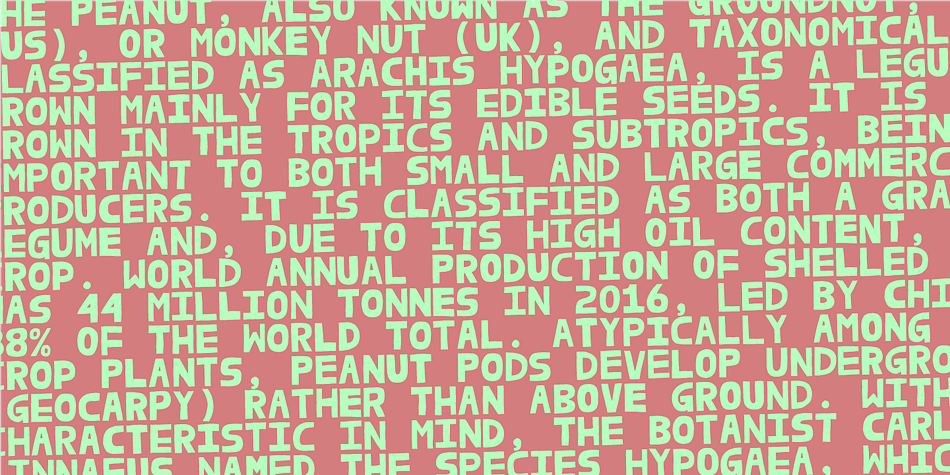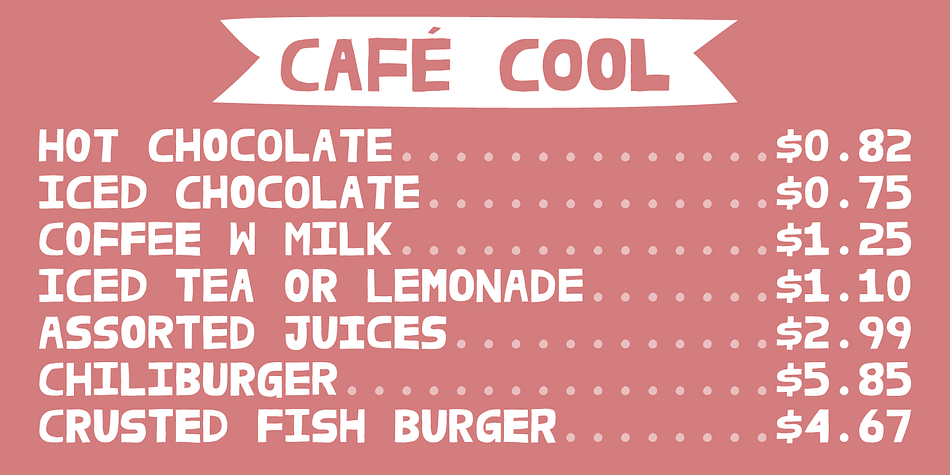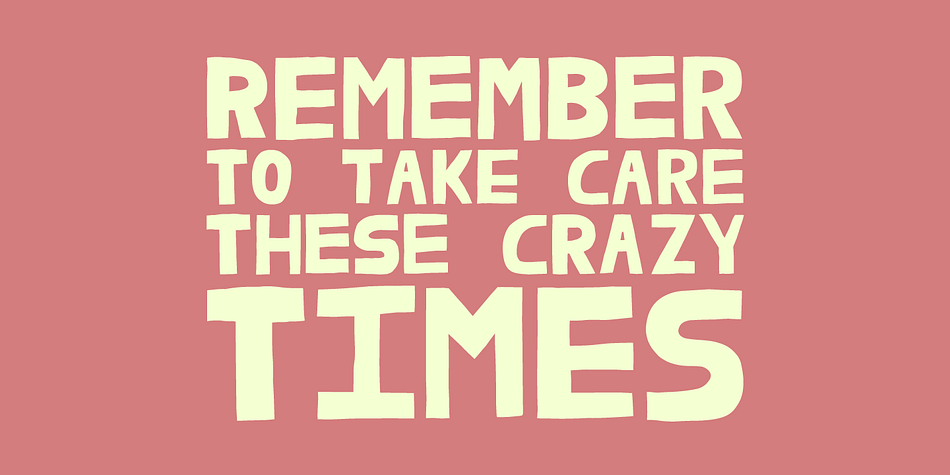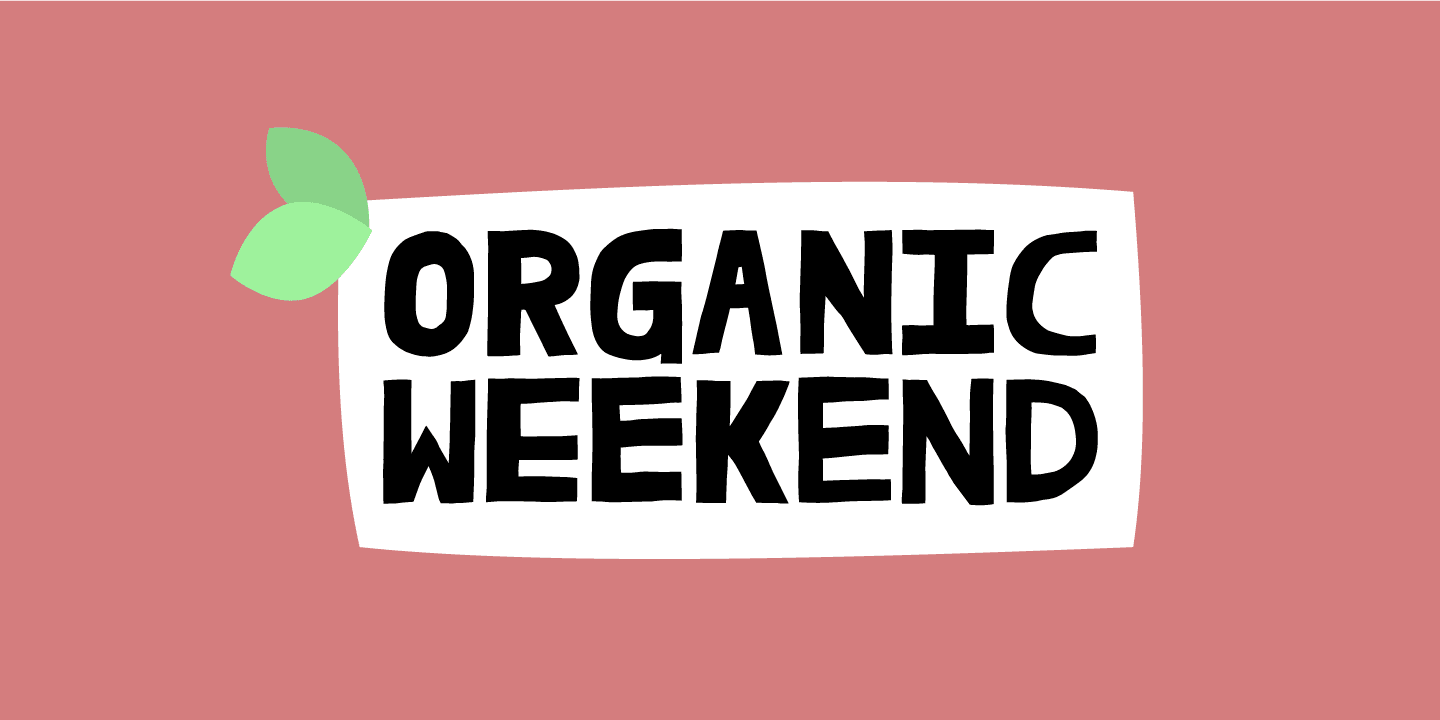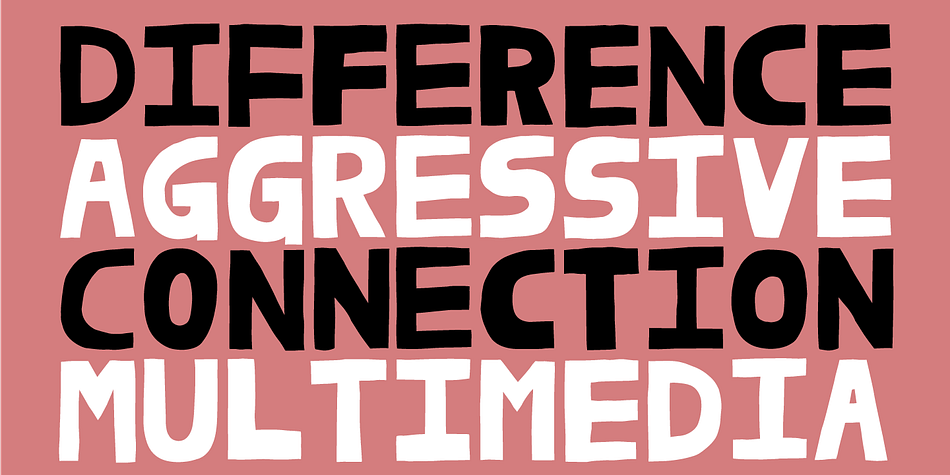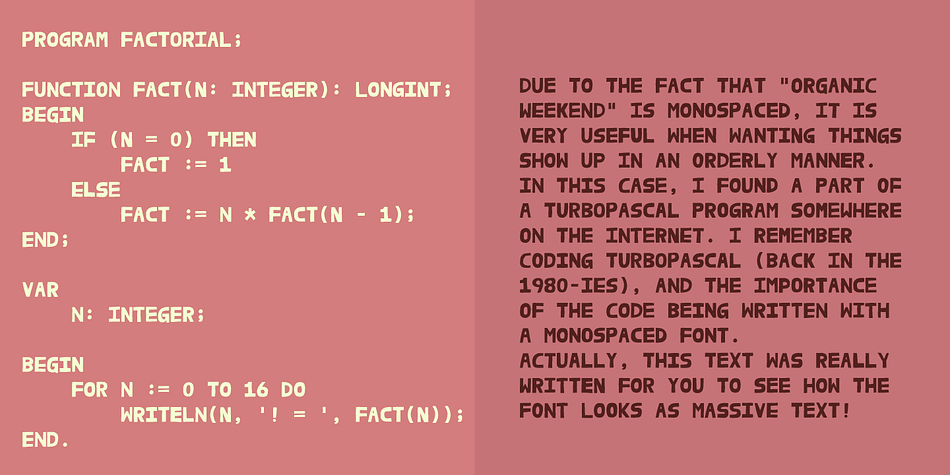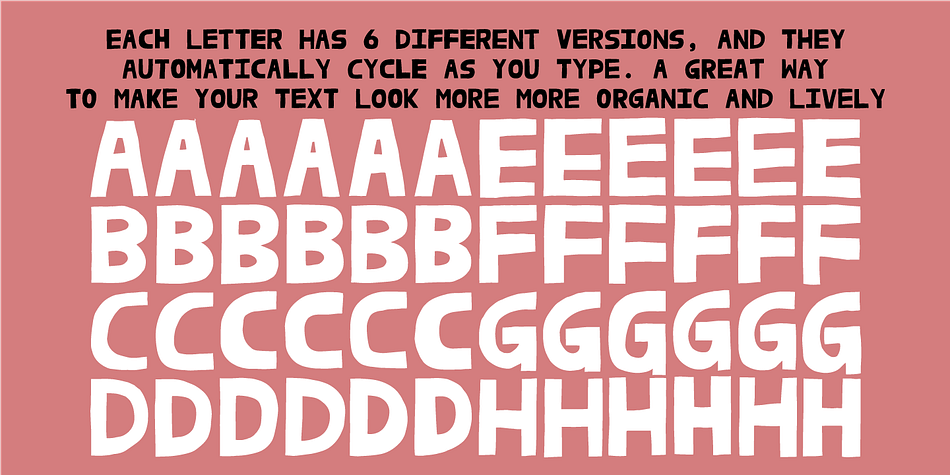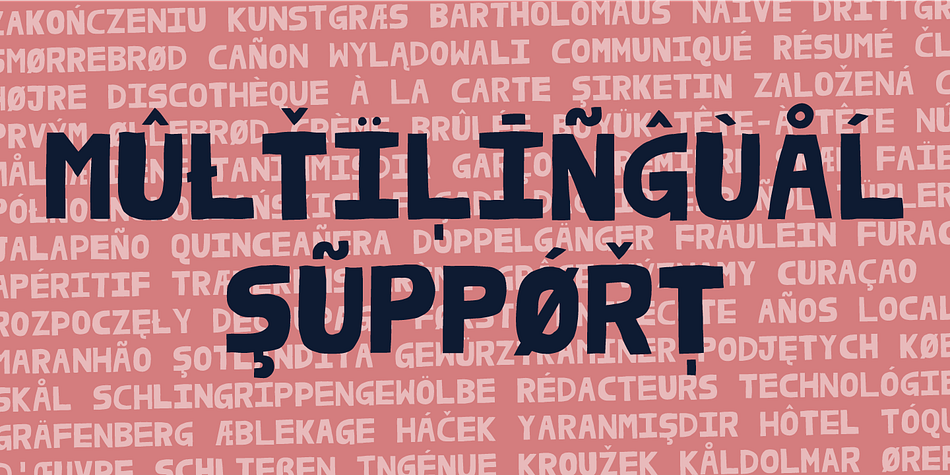
Organic Weekend
Designed by Jakob Fischer, Organic Weekend is a hand display font family. This typeface has two styles and was published by Bogstav.
It is monospaced and organic. Two words that often not goes hand in hand, but in this case it does.
You have 6 different versions of each letter to choose from, or just let the Contextual Alternates do the job by automatically cycles as you type.